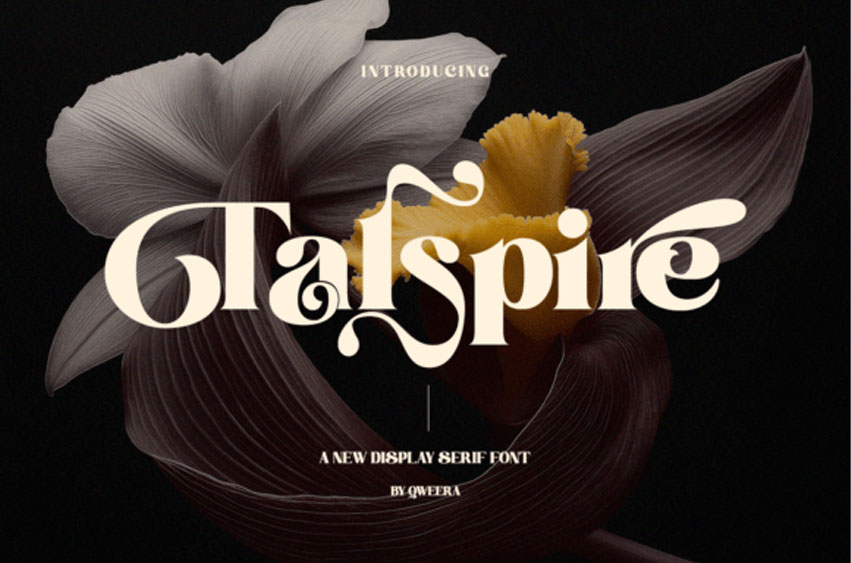
Talspire Font
Talspire Font is an elegant display serif typeface featuring artistic curves and high-contrast strokes. Introduce an aura of timeless glamour and sophisticated eccentricity with Talspire, a bold new display serif font. This typeface artfully blends classic serif structure with exaggerated, flowing swashes and luxurious curves, giving it a dramatic, high-fashion personality. The ornate ligatures and elegant contrast make it the perfect statement piece for luxury brand identities, high-end editorial layouts, sophisticated wedding invitations, premium product packaging, and any project seeking to convey an exclusive, artistic, and utterly captivating aesthetic. It is more than just a font; it’s a piece of typographic art.
This serif font is ideal for designers seeking a bold yet elegant typographic statement.